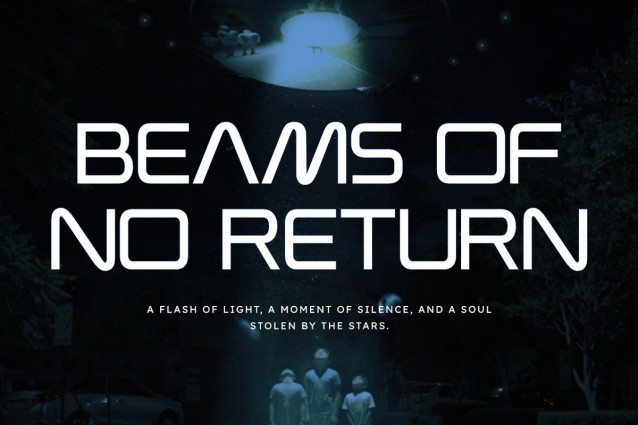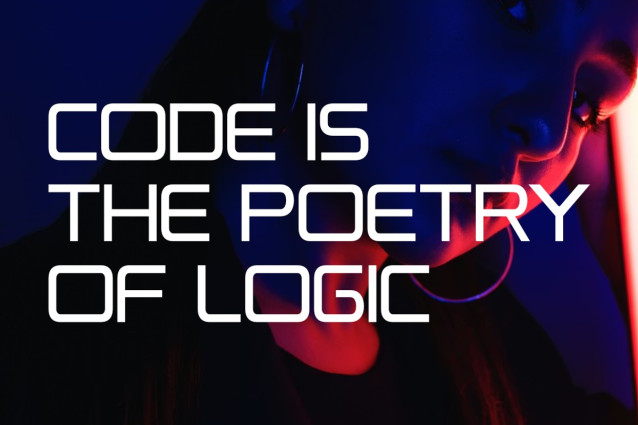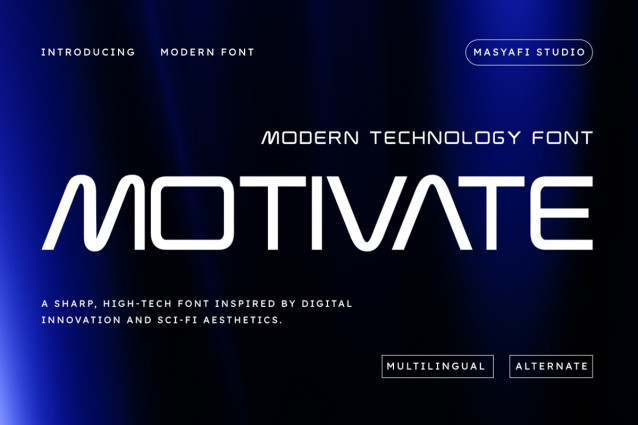
Motivate Font
Motivate Font a modern technology font meticulously crafted for high-impact visual projects. Whether you are building a brand for a tech startup, designing an esports logo, or creating cinematic movie titles, Motivate provides that sharp, professional edge you need.
The font draws heavy inspiration from digital innovation and science-fiction aesthetics, blending minimalist curves with rigid industrial structures. It’s not just a font; it’s a statement of progress and precision.